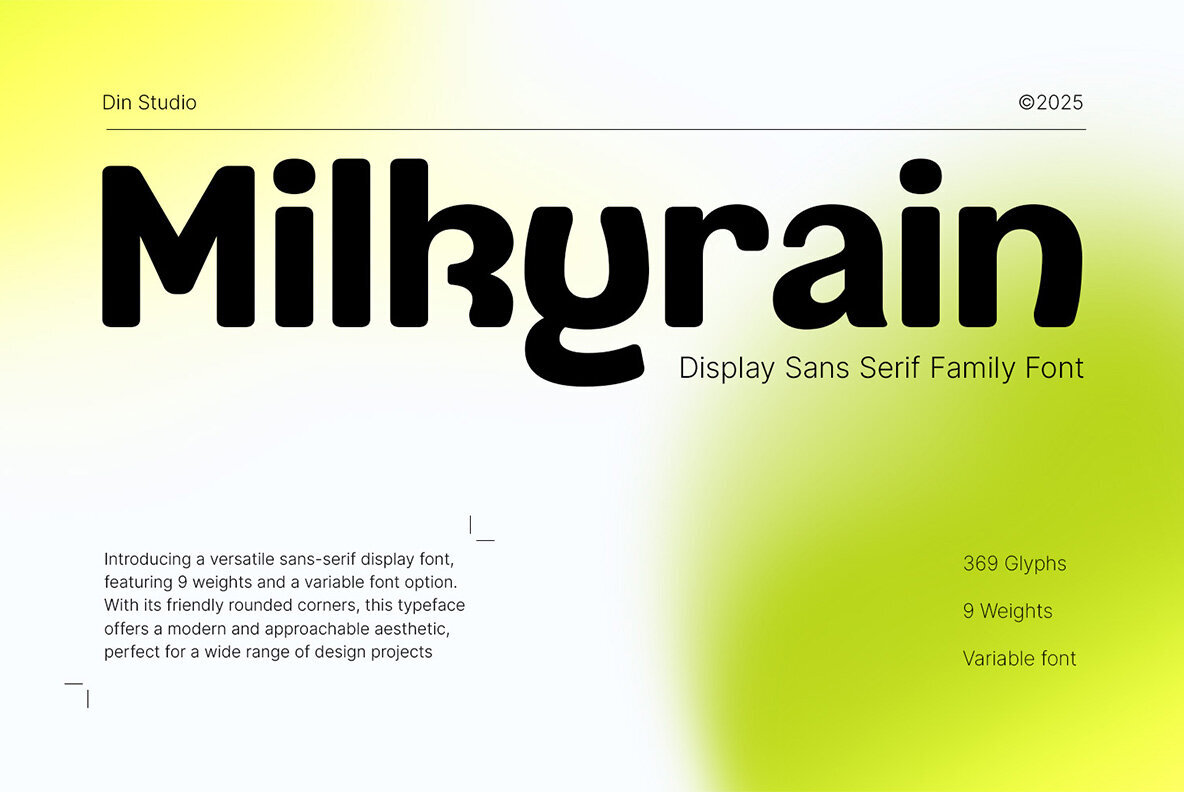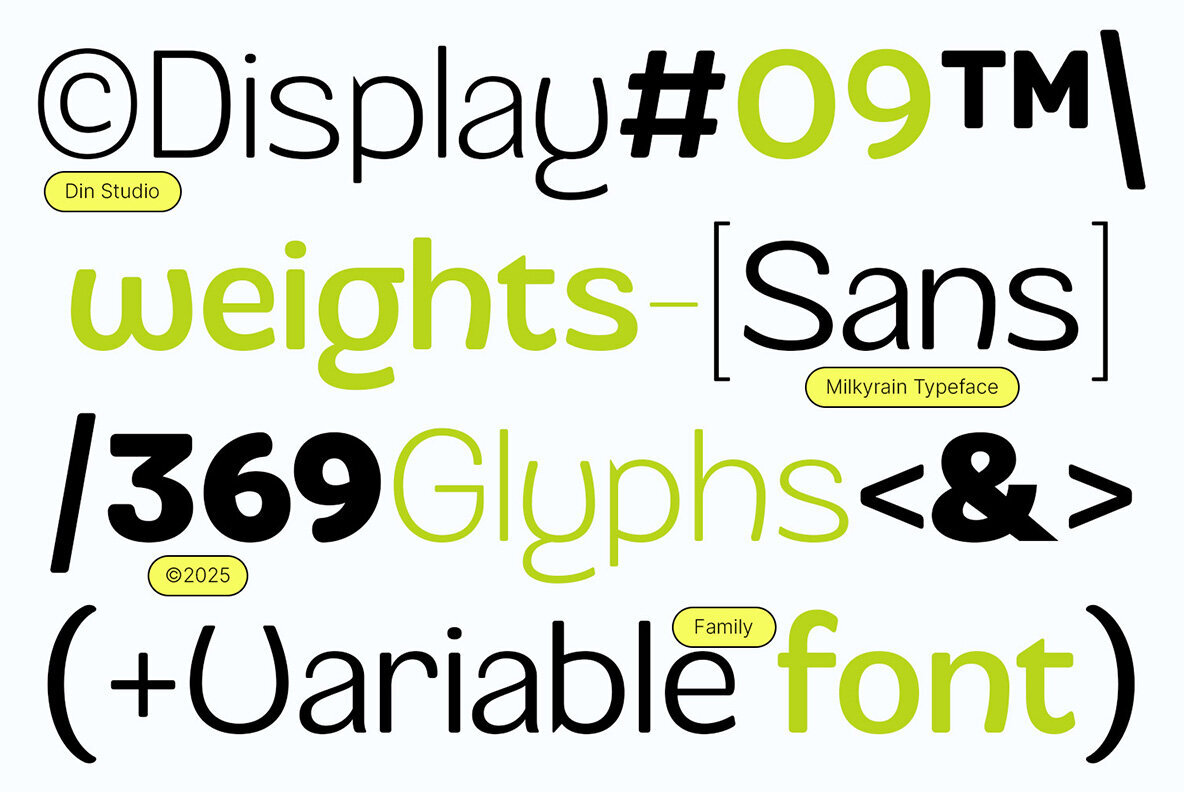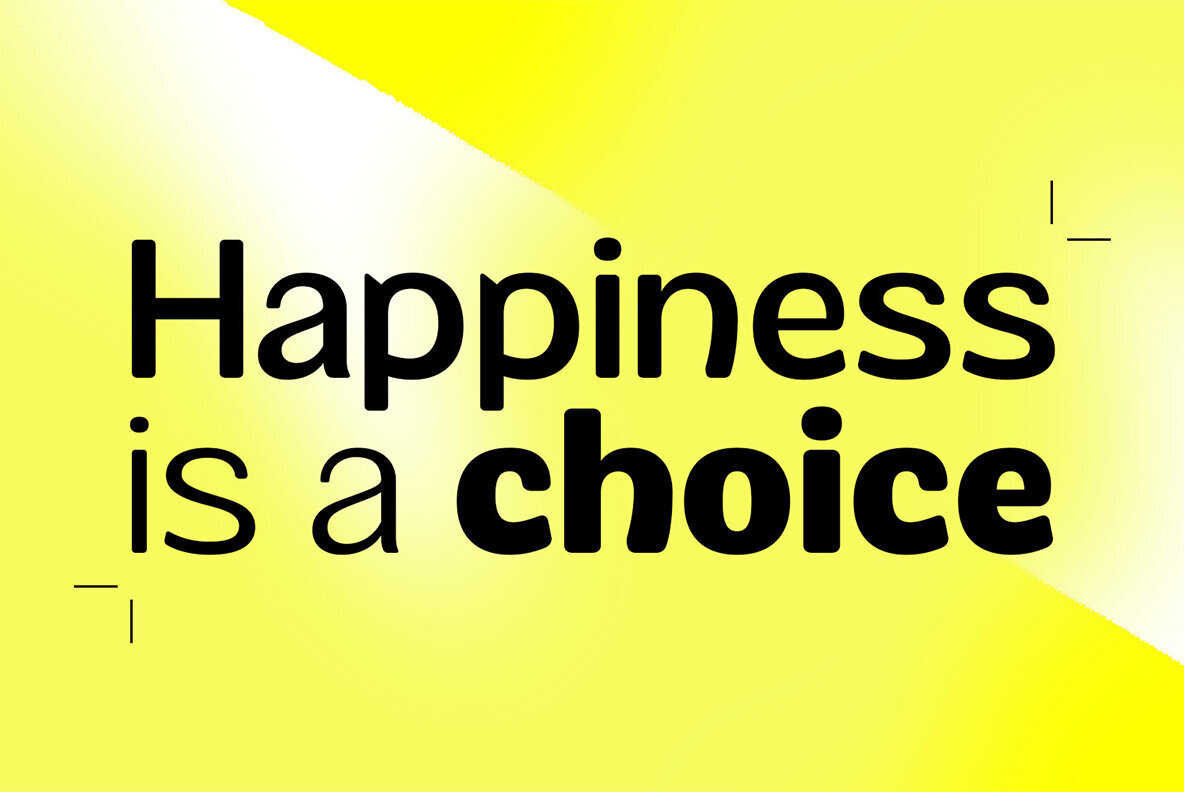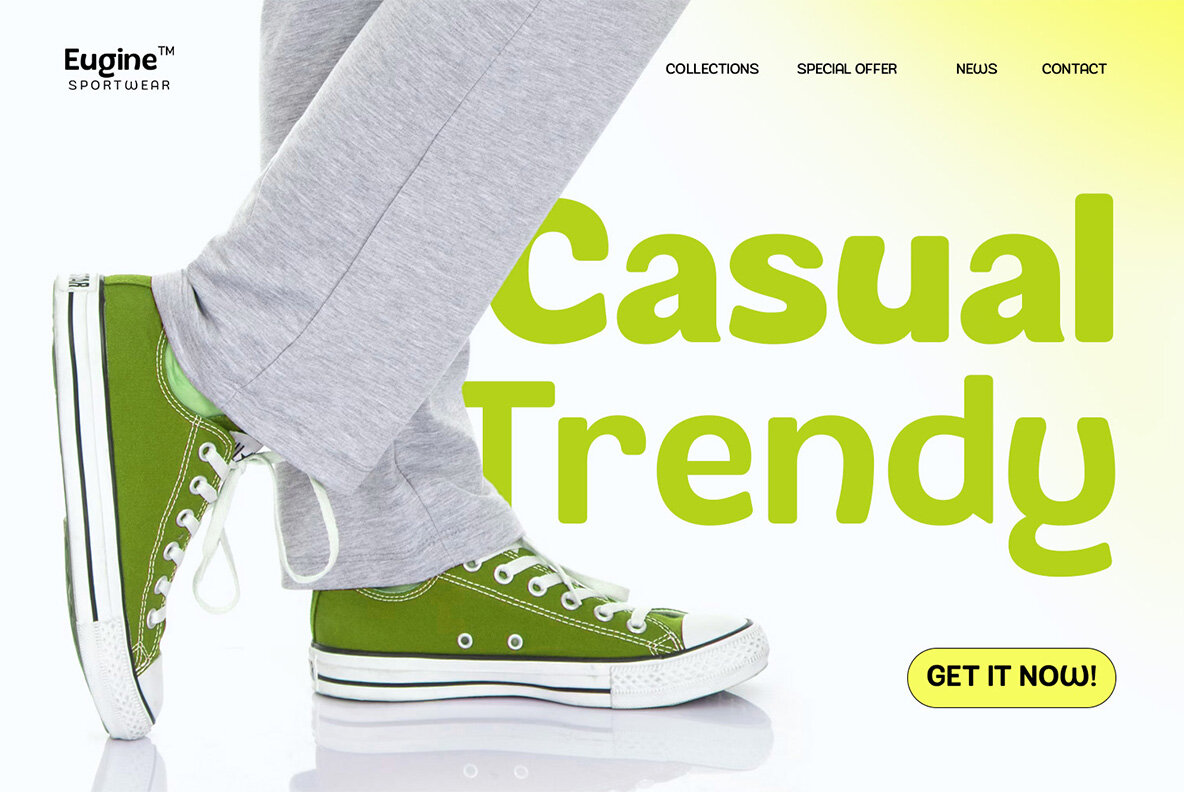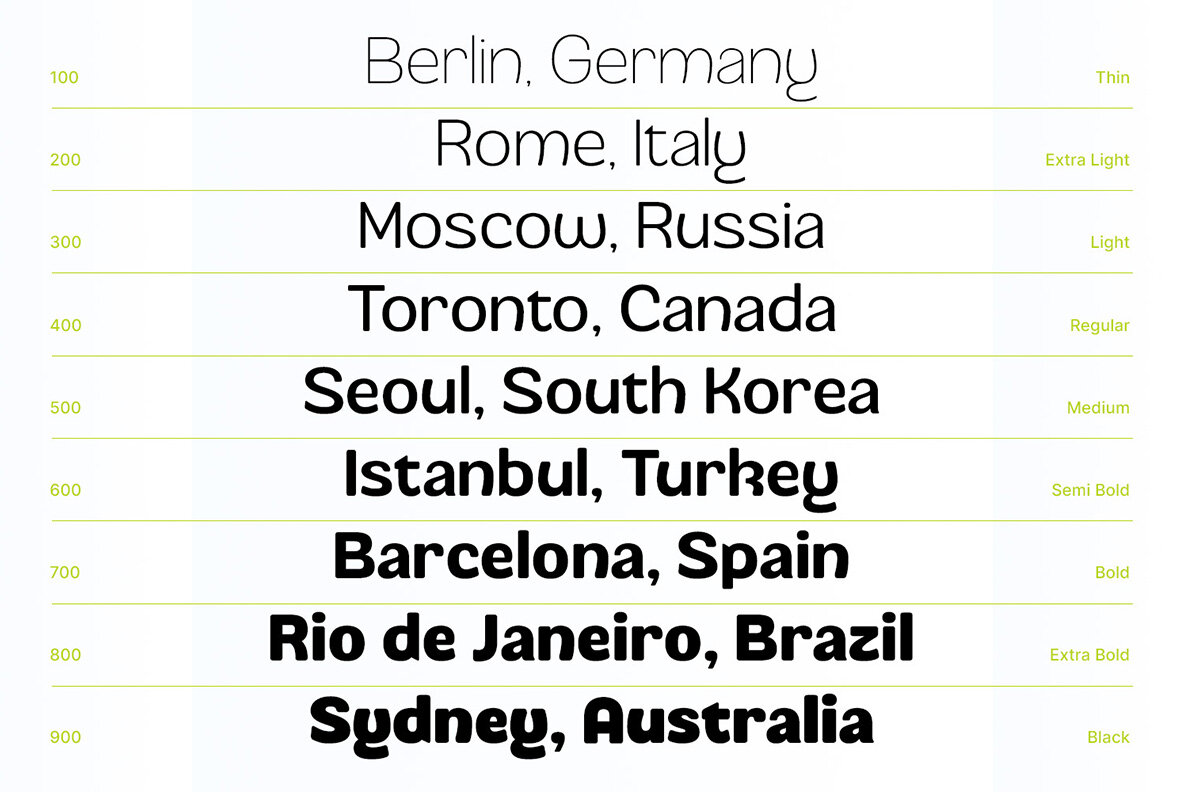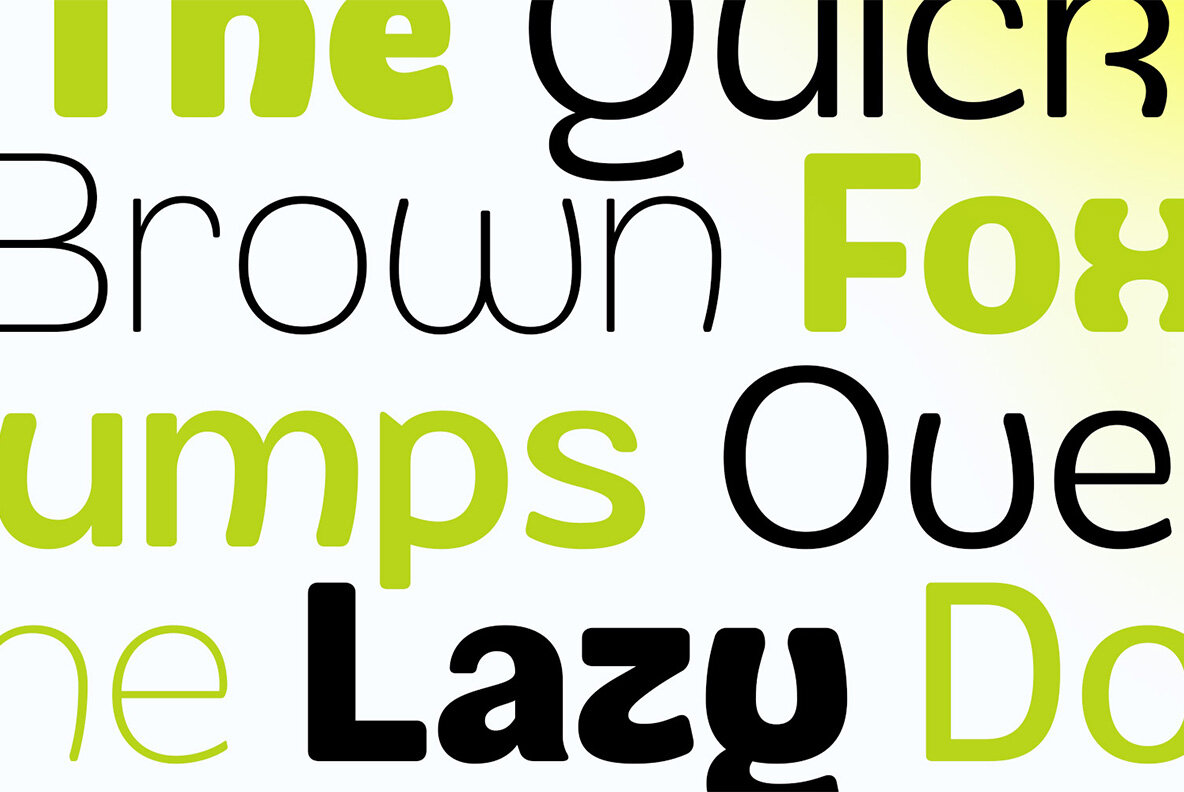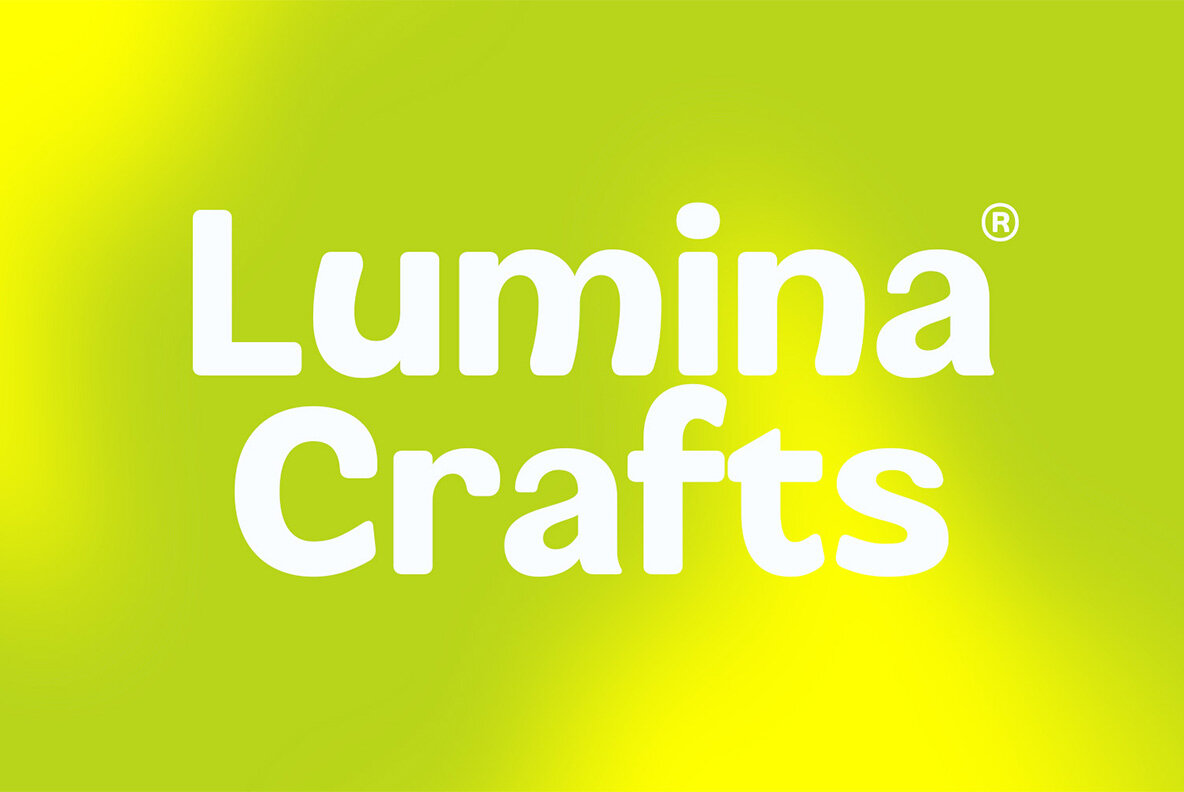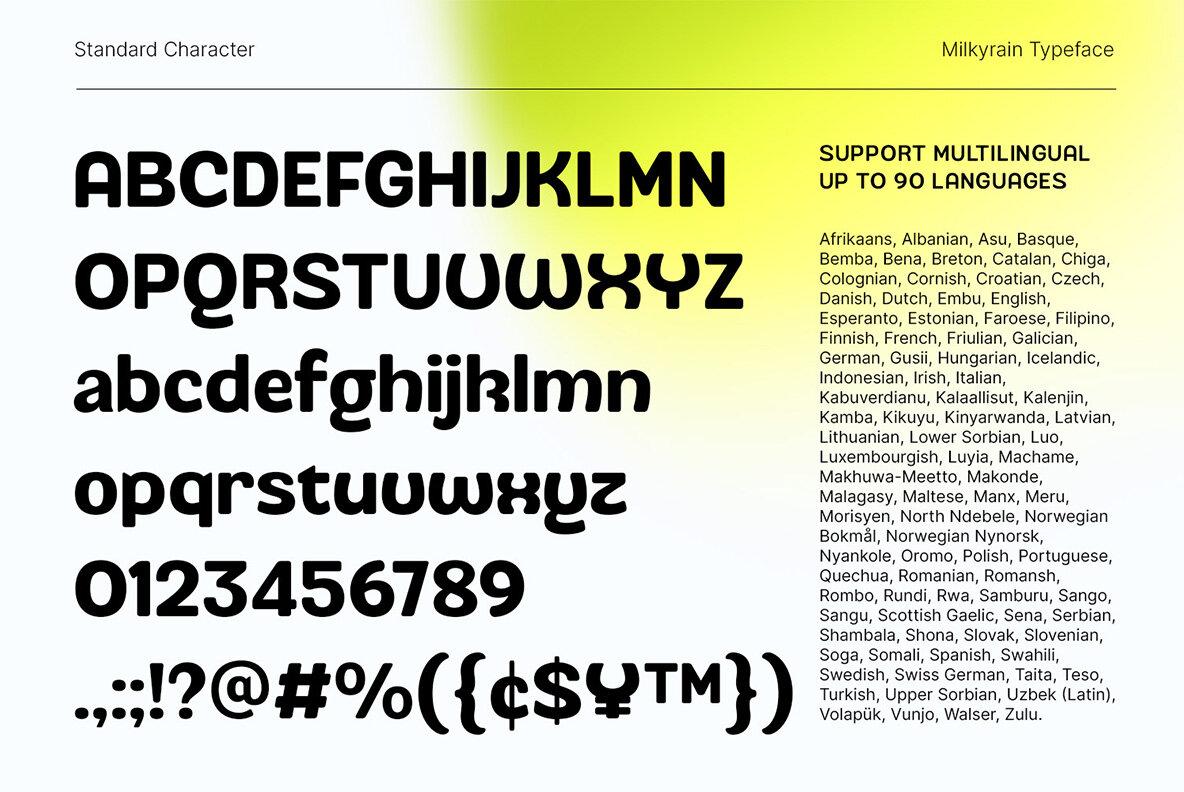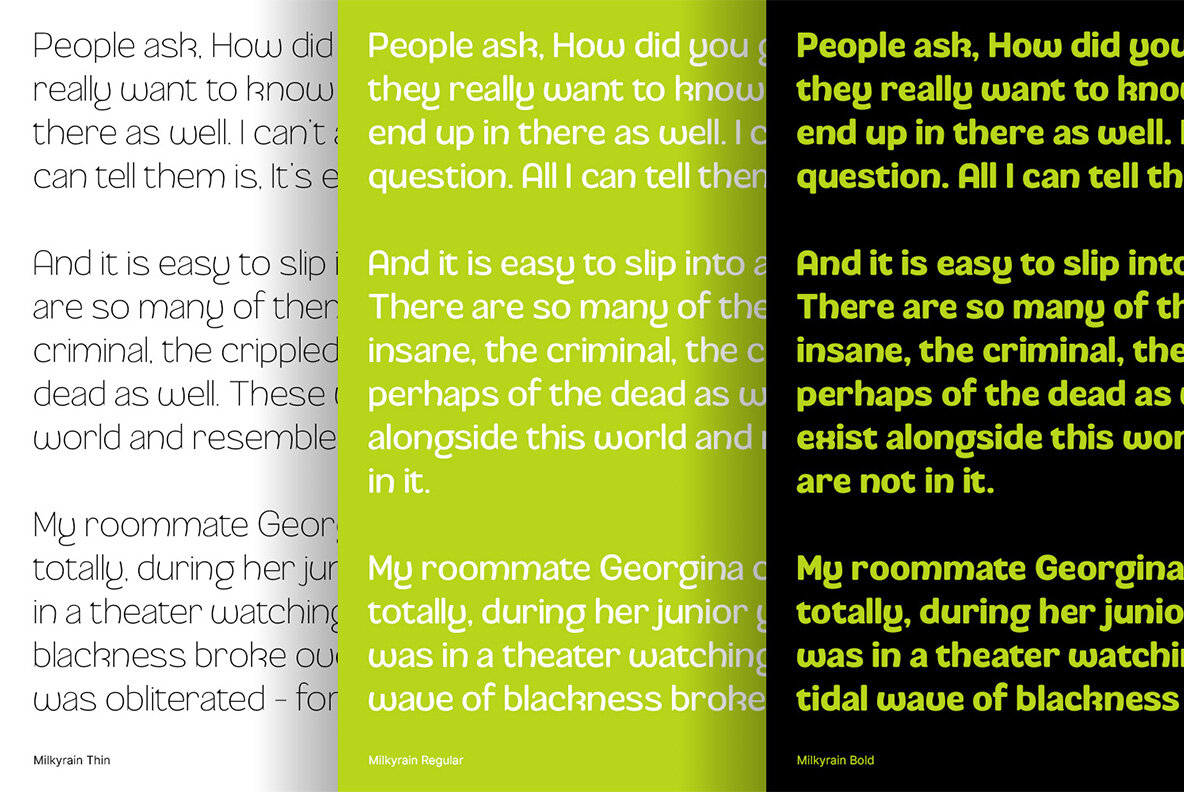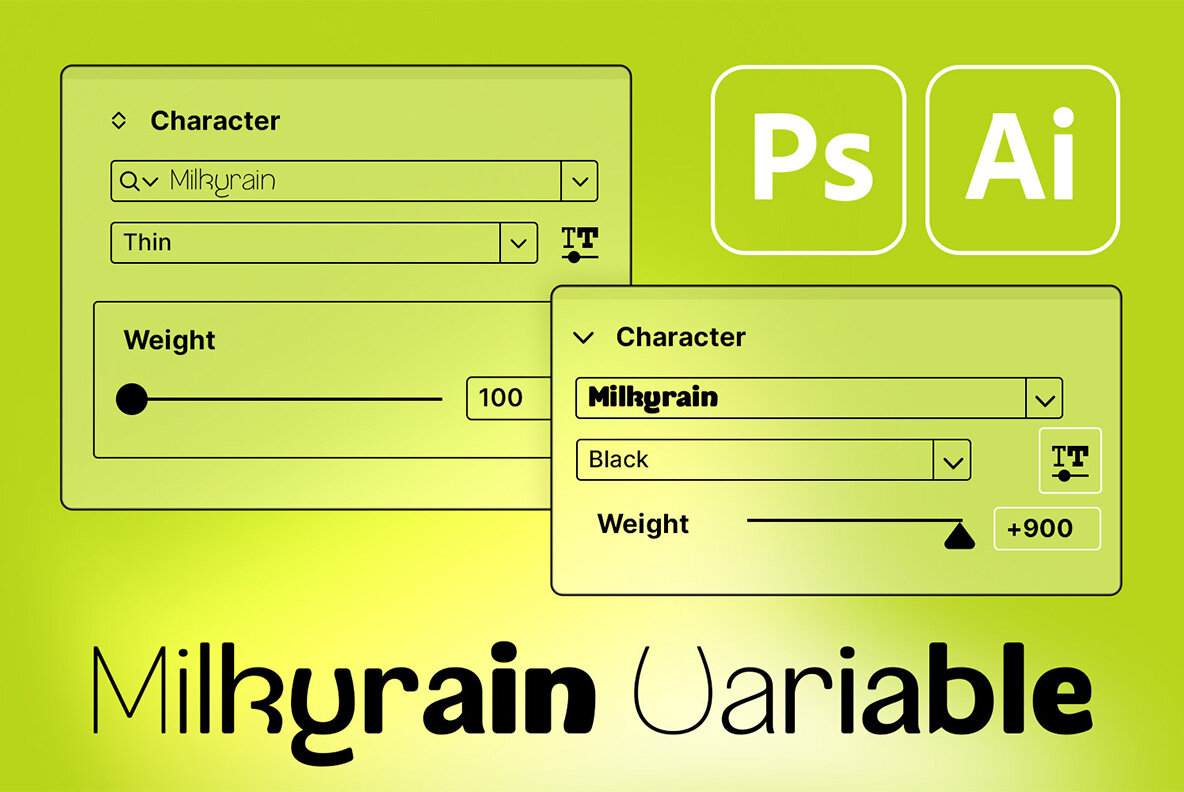
Milyrain Font
Milkyrain seamlessly combines softness with simplicity in a delightful sans serif font family. With its 9 distinct weights ranging from Thin to Black, this font exudes a playful personality through rounded corners and quirky letterforms, infusing warmth and character into any design. The variable font feature allows you to adjust weights with ease, making it perfect for applications like branding and creative packaging. Versatile Features Milkyrain is ideal for use in logos, branding, packaging, posters, social media posts, and more. Explore different creative possibilities by checking the font preview. Enjoy the flexibility and charm of Milkyrain, and feel free to reach out for assistance anytime.Milkyrain: A Charming Display Sans Serif Font Family